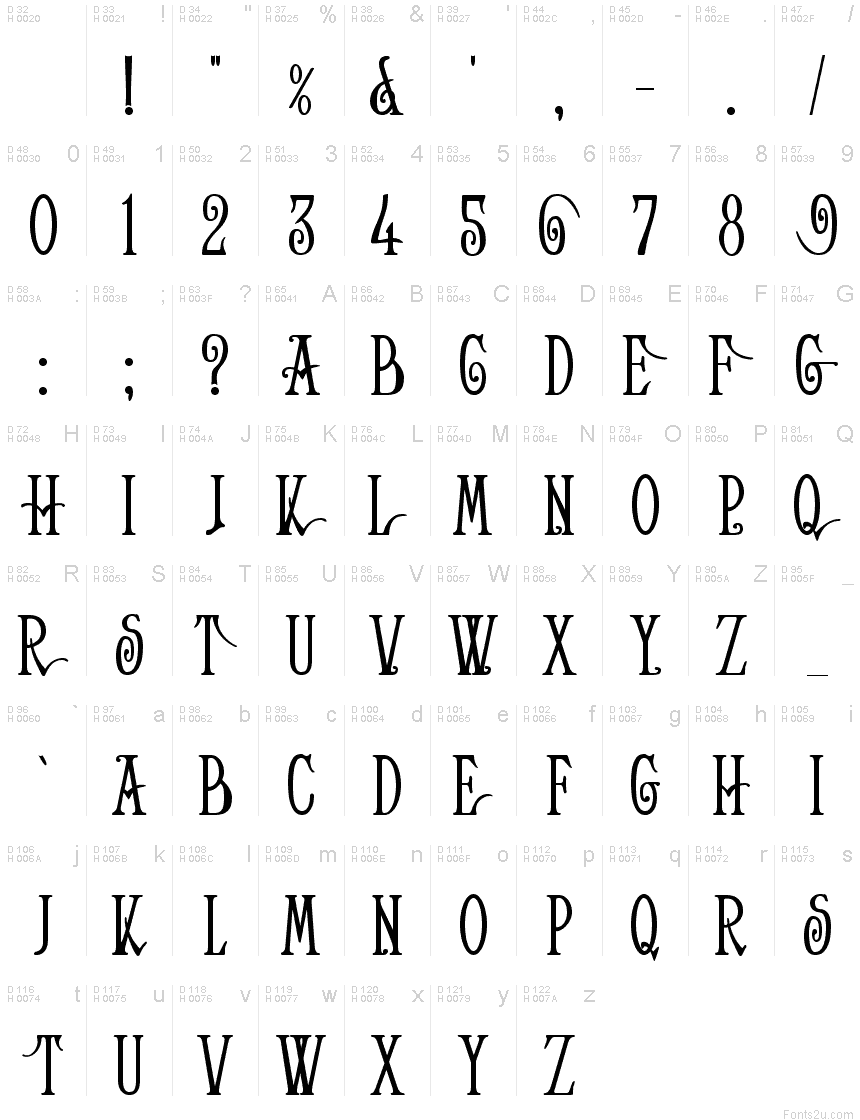
Helena-Wide
Helena Wide font by PJL is a free retro decorative typeface. Its tall, willowy letters stand like wrought-iron gates, while those swooping, wave-like curves at the baseline feel almost like rolling fabric or ocean swells. The mix of sharp verticals and playful underscoring gives every word a theatrical, slightly mystical presence that instantly feels curated and intentional.
Using Helena Wide, headlines don’t just label—they perform. This free font shines on vintage-inspired posters, cocktail bar menus, book or album covers, boutique packaging, and dramatic event invitations. Set it large so the curving details have room to breathe, and pair it with a simple, neutral sans serif for body text to keep the ornate character of Helena-Wide firmly in the spotlight.